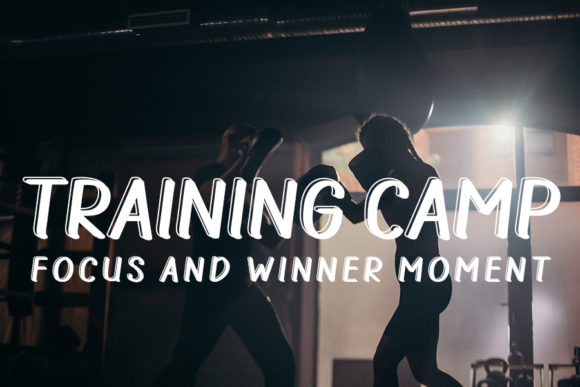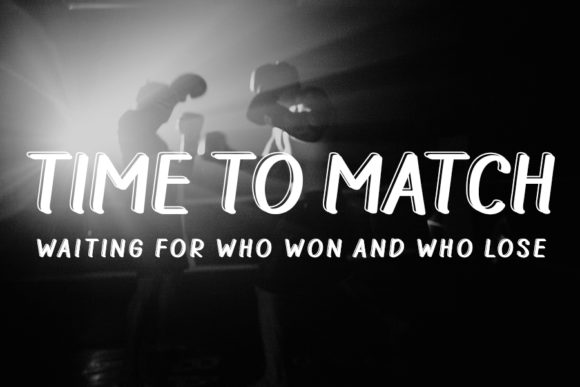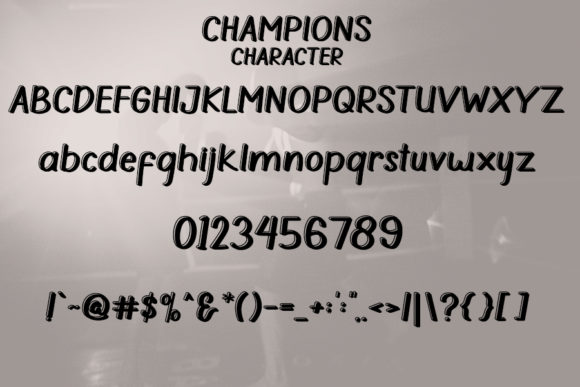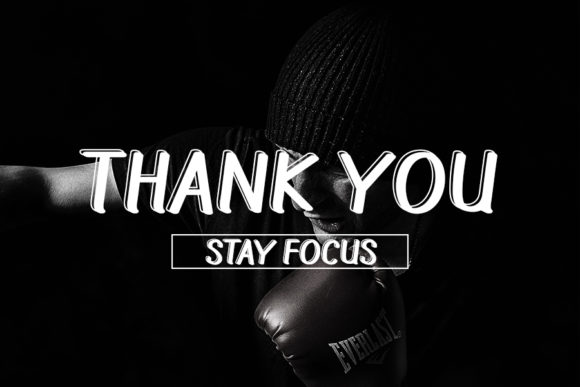
Introducing Championship Font: Elevate Your Designs with Authentic Style
Are you tired of using generic fonts that fail to make an impact? Look no further than Championship Font, an authentic and neat lettered display font that’s sure to take your creative projects to the next level. Masterfully designed to become a true favorite, this font has the potential to bring each of your creative ideas to the highest level!
What Makes Championship Font Stand Out?
Championship Font is a unique and stylish display font that’s perfect for designers, crafters, and anyone looking to add a touch of authenticity to their work. Here are just a few reasons why this font stands out:
• Authentic and Neat Design: Championship Font boasts an authentic and neat design that’s perfect for creating stunning visual content. Its clean lines and precise lettering make it ideal for use in a variety of applications, from logos and branding to posters and social media graphics.
• Highly Versatile: Whether you’re working on a personal project or a client’s, Championship Font is highly versatile and can be used in a range of contexts. Its bold and eye-catching design makes it perfect for headlines, titles, and other display text.
• Easily Readable: Despite its bold and stylized design, Championship Font is surprisingly easy to read. This makes it perfect for use in body text, as well as display text.
The Benefits of Using Championship Font
So why should you choose Championship Font for your next project? Here are just a few benefits of using this amazing font:
• Instant Professionalism: With Championship Font, you can instantly add a touch of professionalism to your work. Its authentic and neat design makes it perfect for use in high-end branding, advertising, and marketing materials.
• Boosts Creativity: Championship Font is designed to inspire creativity and bring your ideas to life. Its unique and stylish design makes it perfect for use in artistic and creative projects.
• Saves Time: With Championship Font, you can save time and effort in your design work. Its highly legible design makes it easy to read and understand, even at small sizes.
How to Use Championship Font
Championship Font is easy to use and can be incorporated into your design work in a variety of ways. Here are a few tips to get you started:
• Pair with Other Fonts: Championship Font pairs well with a range of other fonts, from serif and sans serif fonts to script and decorative fonts. Experiment with different pairings to find the perfect combination for your project.
• Use for Headlines and Titles: Championship Font is perfect for use in headlines and titles, where its bold and eye-catching design can really make an impact.
• Experiment with Colors and Textures: Championship Font looks great in a range of colors and textures. Experiment with different effects to find the perfect look for your project.
Who Can Benefit from Championship Font?
Championship Font is perfect for a range of designers, crafters, and professionals, including:
• Graphic Designers: Whether you’re working on a branding project, creating social media graphics, or designing a website, Championship Font is a great choice.
• Crafters and Artists: Championship Font is perfect for crafters and artists looking to add a touch of authenticity and style to their work.
• Marketers and Advertisers: With its bold and eye-catching design, Championship Font is perfect for use in marketing and advertising materials.
In conclusion, Championship Font is an amazing display font that’s perfect for designers, crafters, and anyone looking to add a touch of authenticity and style to their work. Its authentic and neat design, highly versatile, and easily readable make it a great choice for a range of applications. So why wait? Download Championship Font today and take your creative projects to the next level!